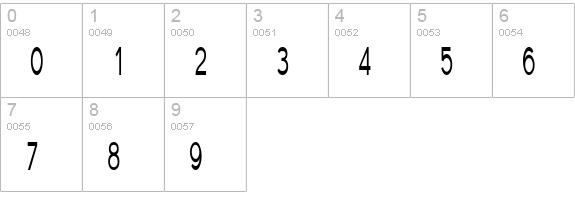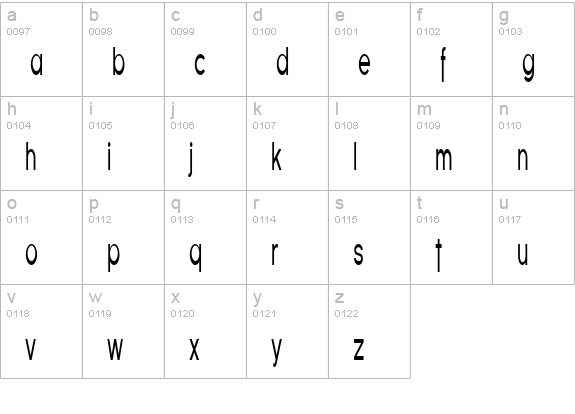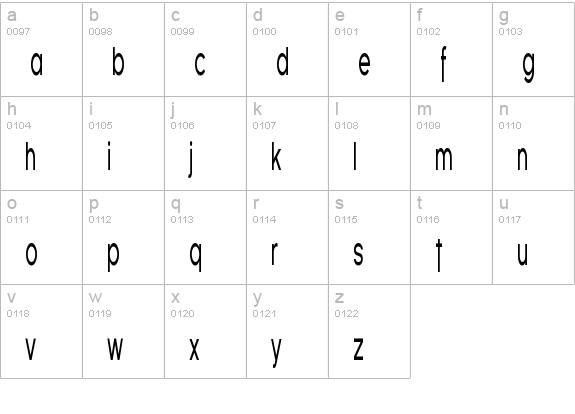
Florencesans Comp is a modern and sleek font that exudes elegance and sophistication. Its clean lines and balanced proportions make it perfect for a wide range of design projects, from branding to editorial layouts. This versatile typeface strikes the perfect balance between classic and contemporary, making it a timeless choice for any designer. What sets Florencesans Comp apart is not only its exquisite design but also the fact that it is available for free. Designers and creatives looking for a high-quality font without breaking the bank will appreciate that Florencesans Comp can be freely downloaded at FontsMarket.com. With its extensive character set and various weights, this font offers endless possibilities for creating stunning and impactful designs. Elevate your projects with Florencesans Comp and make a statement with this exceptional typeface.